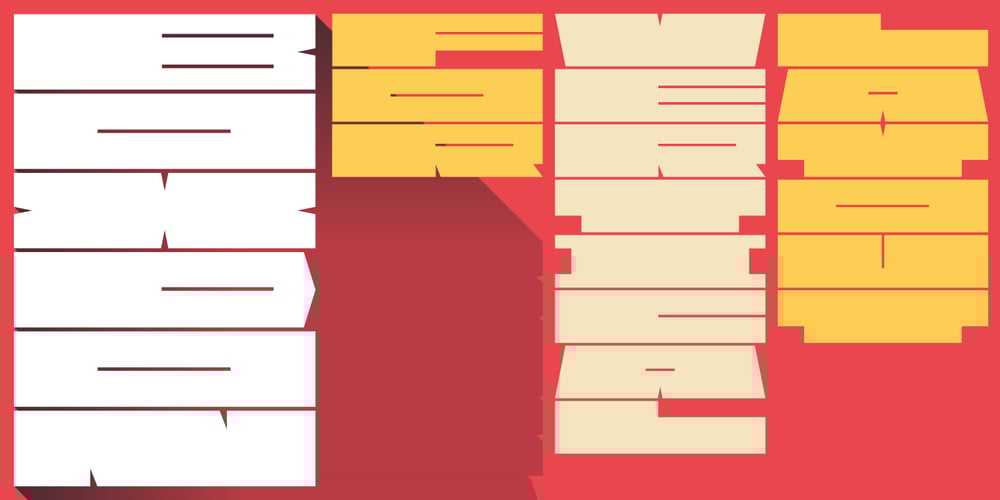
BOXDON Titling Font Family was designed by Shuhei Toyoda and published by TYDTYP. BOXDON Titling contains 1 styles and family package options. BOXDON is an extra heavy expanded typeface which was especially designed for VERTICAL layout. Each shape looks like a box and has minimum graphical treatment to distinguish each character. It means that the counter space is not enough to use this typeface for small font sizes, however, for titles this typeface should give incredible effects. I highly recommend using it with software that is compatible with vertical layout. (e.g. Adobe illustrator)